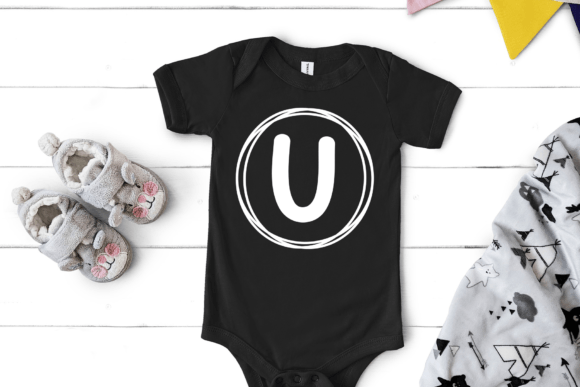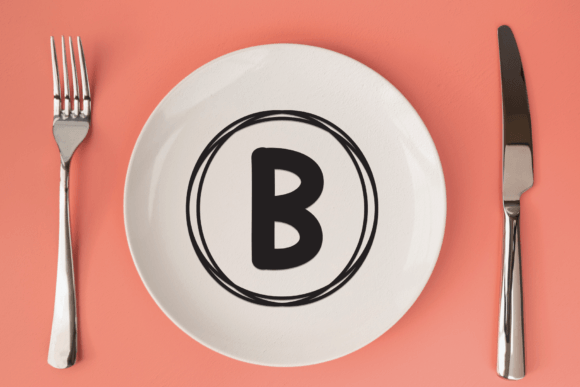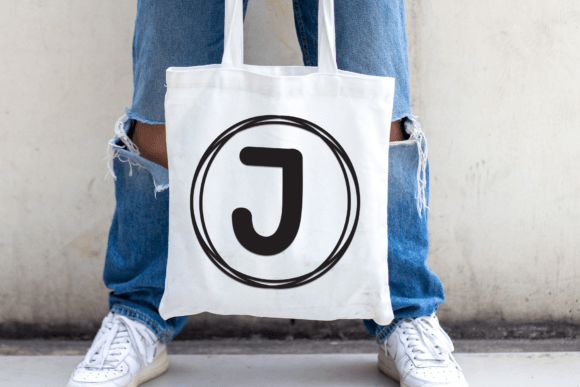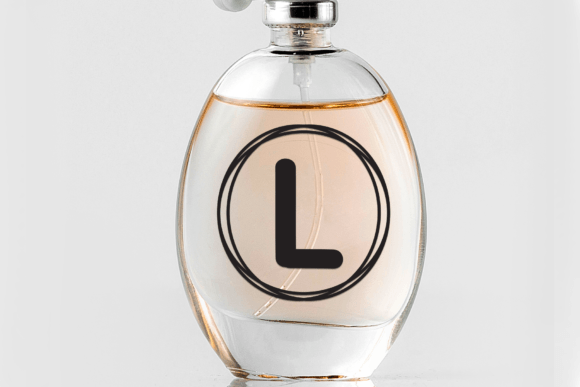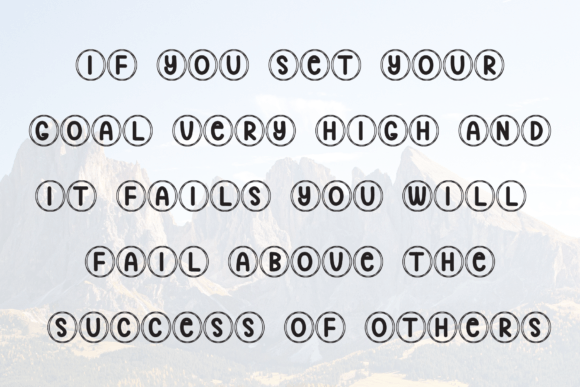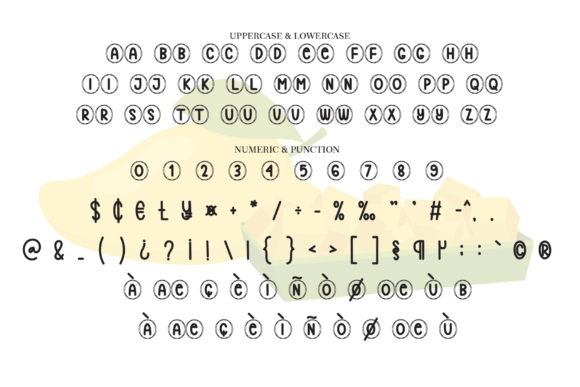
Introduction to Flavor Mellow Font
Have you ever found yourself staring at a blank canvas, struggling to bring your creative vision to life? We’ve all been there – the blank page, the empty design space, the endless possibilities. But what if you had the perfect tool to elevate your project and make it truly stand out?
Enter the Flavor Mellow Font, a stunning organic decorative font that’s about to become your new go-to design resource. With its beautiful ornaments and elegant feel, this free download is the perfect addition to any creative project. Whether you’re designing a wedding invitation, a logo, or a social media post, the Flavor Mellow Font has the potential to add a touch of sophistication and style to your work.
Key Features of Flavor Mellow Font
- High-quality design resource suitable for various creative projects, including digital art and graphic design.
- Features a transparent background, allowing for seamless integration into various design elements and backgrounds.
- Includes a wide range of characters, including uppercase and lowercase letters, numbers, and punctuation marks, making it a versatile font for various applications.
- Designed with a unique, mellow aesthetic, perfect for creating a calming and professional atmosphere in designs.
- Available in a single font size, with a resolution of 1024 x 1024 pixels, ensuring crisp and clear typography in various designs.
- Suitable for use in both print and digital media, including business cards, brochures, websites, and social media graphics.
Honest Review: Flavor Mellow Font
I recently had the chance to try out the Flavor Mellow Font, and I must say it’s a great addition to my design resource collection. As a designer, I’m always on the lookout for high-quality fonts that can elevate my creative projects.
One of the things I love about the Flavor Mellow Font is its versatility. The font comes in a variety of styles and weights, making it easy to find the perfect fit for any project. ✨ I’ve used it for everything from logos to social media graphics, and it always looks great.
- Versatile font styles
- No bold italic style
- Some users may find the font too playful for certain projects
Overall, I’m really impressed with the Flavor Mellow Font. It’s a great addition to any designer’s toolkit, and I highly recommend giving it a try. ✨
Flavor Mellow Font is ideal for a variety of creative projects, including blog posts, social media graphics, and business cards. Its high-quality design and transparent background make it perfect for use as a design resource.
Getting the Most Out of Flavor Mellow Font
To get the most out of Flavor Mellow Font, be sure to download it in high quality and use it in conjunction with other design elements. Experiment with different font sizes, colors, and styles to create unique and visually appealing designs. With Flavor Mellow Font, the possibilities are endless!